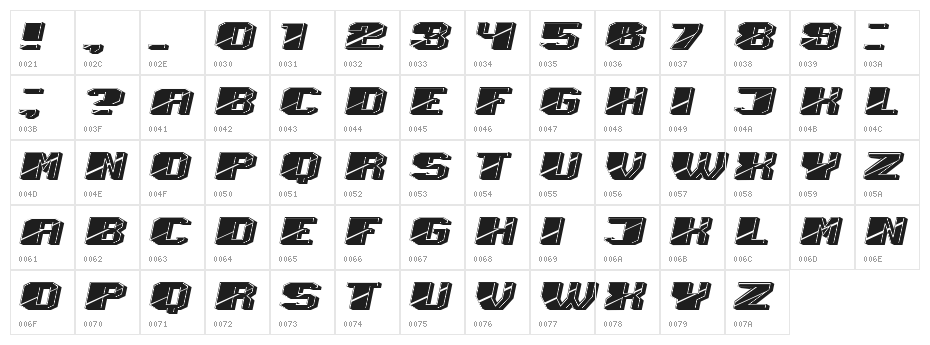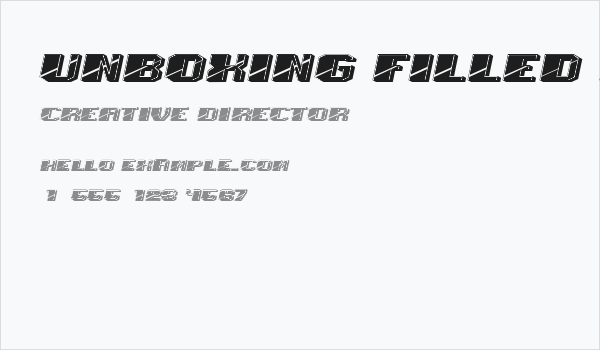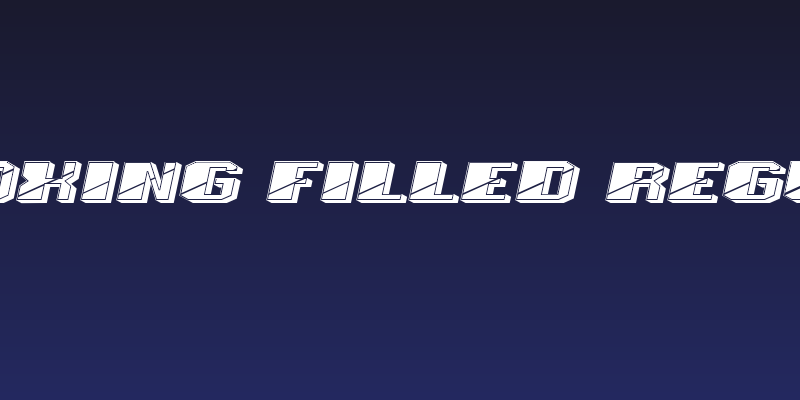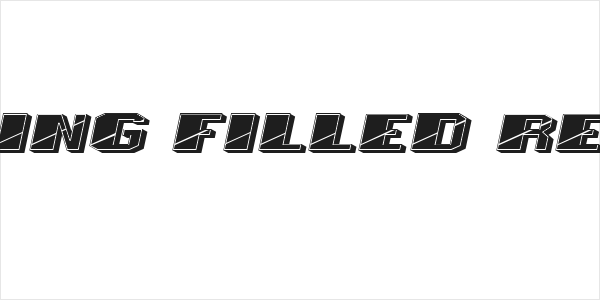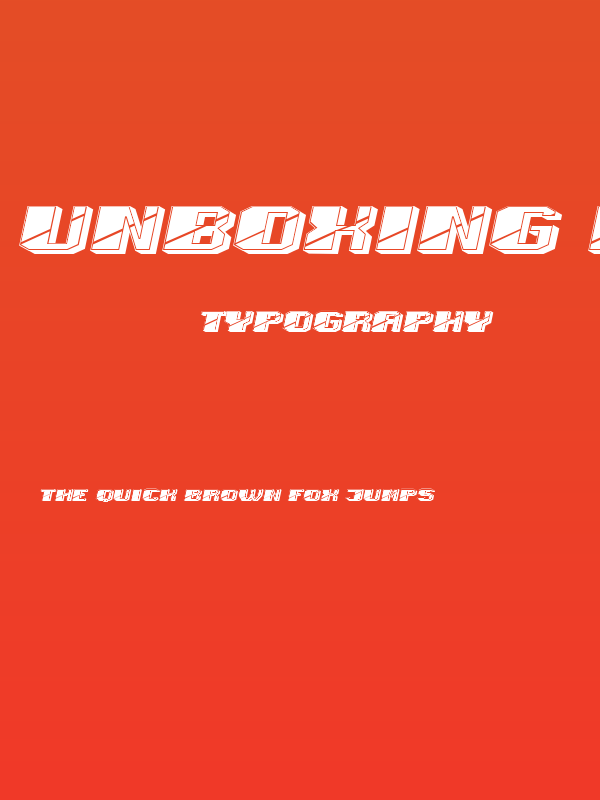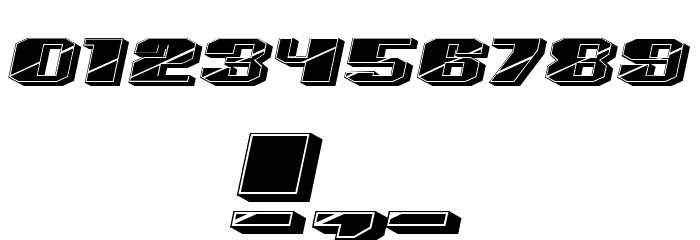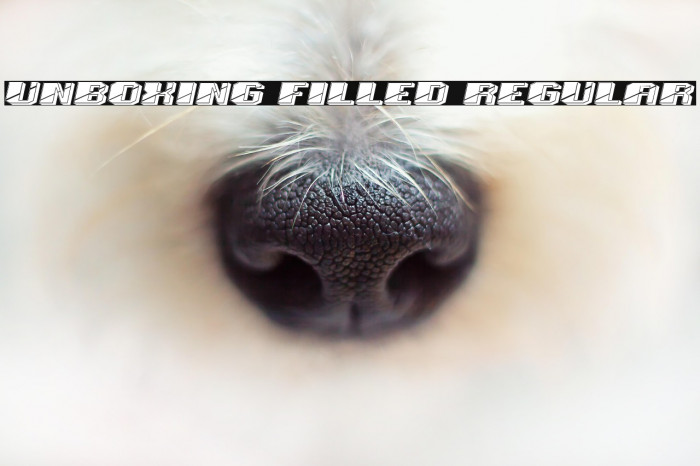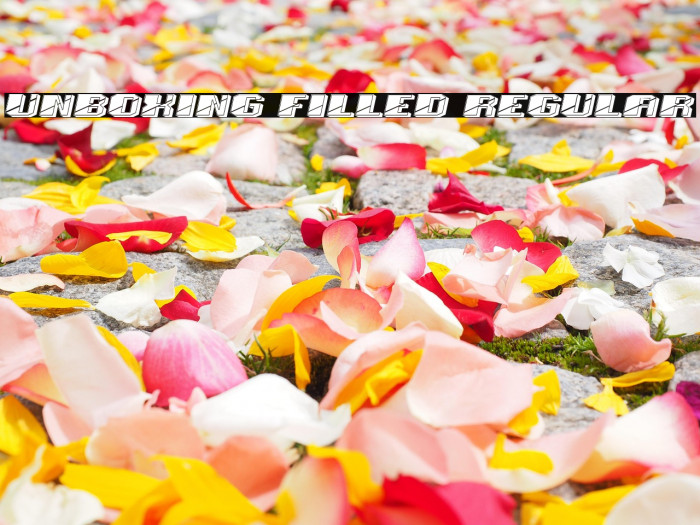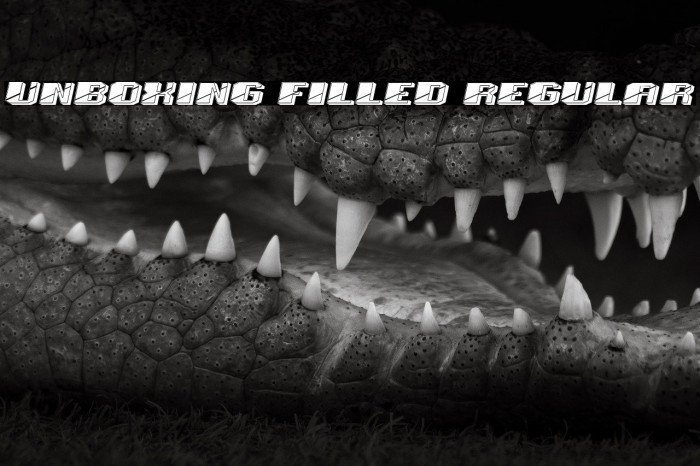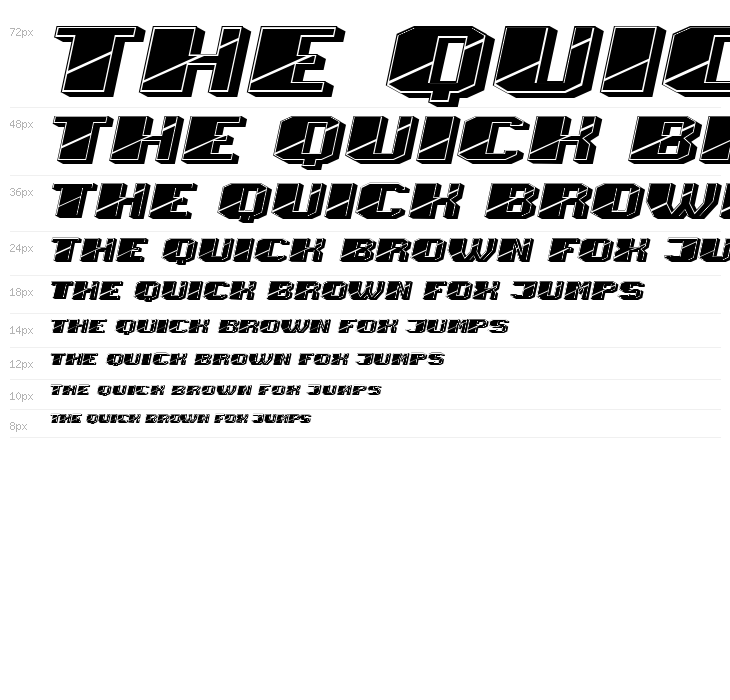
Unboxing Filled Regular Font
Unboxing Filled Regular Description
This font features a bold, geometric design with a three-dimensional effect, giving each character a boxed appearance. The letters are filled with solid black, creating a strong visual impact. The angular shapes and sharp edges contribute to a modern and futuristic aesthetic. The font maintains consistency across uppercase and lowercase letters, as well as numbers and special characters, ensuring a cohesive look. Its unique style makes it stand out, suitable for projects that require a bold statement.
| Proposed Projects | Ideal for branding, posters, video game graphics, and any project needing a futuristic or bold look. |